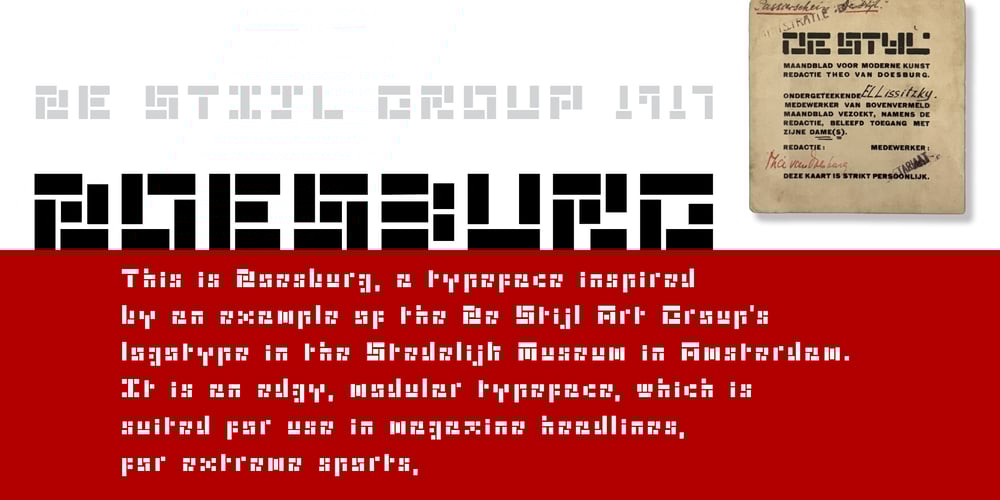
Doesburg Font Family was designed by Patrick Molloy and published by Rocket 88 Foundry. Doesburg contains 1 styles and family package options. Doesburg is a font inspired by an example of the De Stijl Creative Group’s logotype in the Stedelijk Museum in Amsterdam. It is an edgy, modular typeface, which is well suited for use in magazine headlines, for extreme sports, in film posters, book jackets, for event graphics and as a headline typeface on websites. The design adheres to the original creative principles of the Neo-Plasticist De Stijl Group and is named after Theo Van Doesburg, one of the founding members of De Stijl.